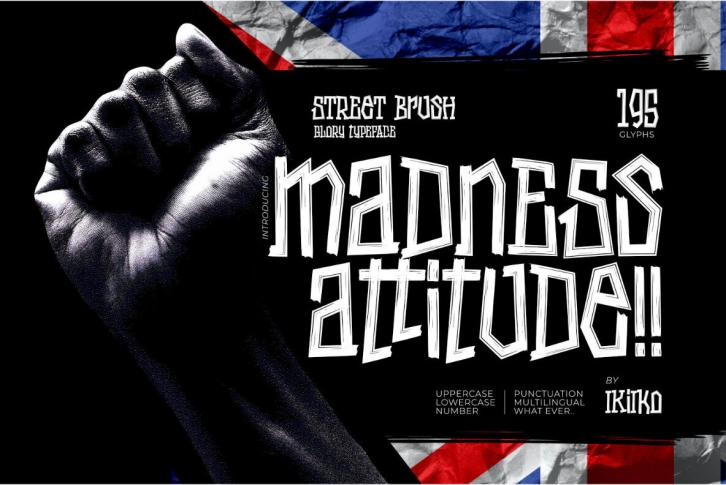
Inspired by the brush strokes on the street, where the raw, rough lines show a strong character of freedom expression. The font has a sloppy & dirty stroked texture, so it fits perfectly for making a poster, magazine layout, youth stuff, sleeve cover, party flyer, quotes, or simply as a stylish text overlay to any background image.